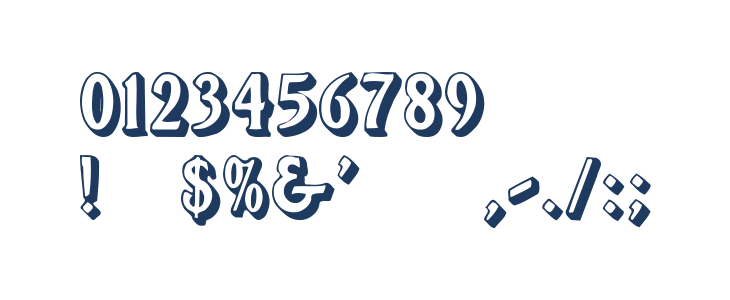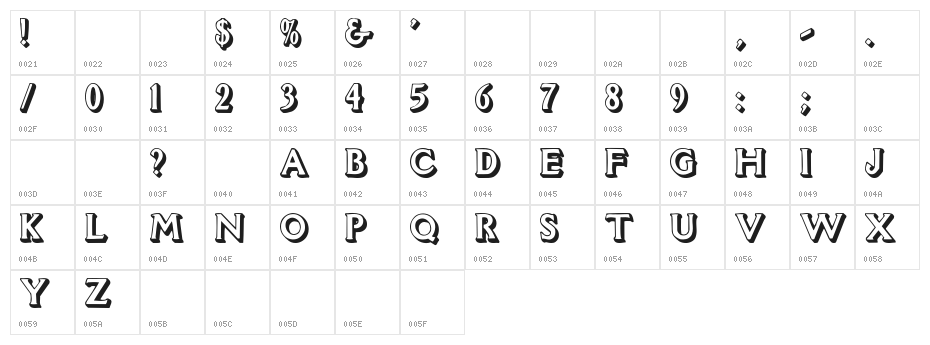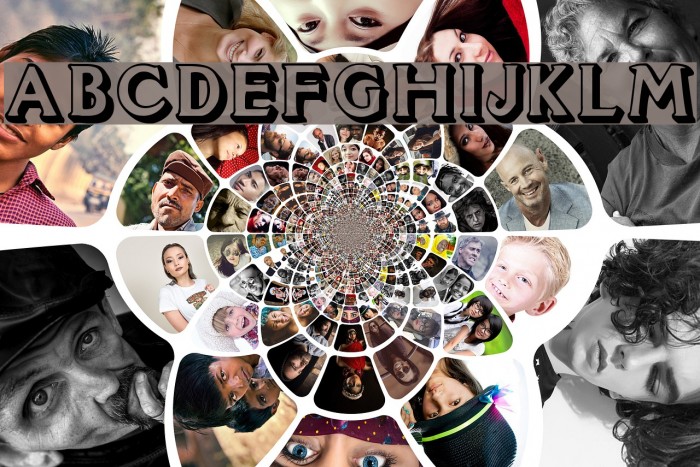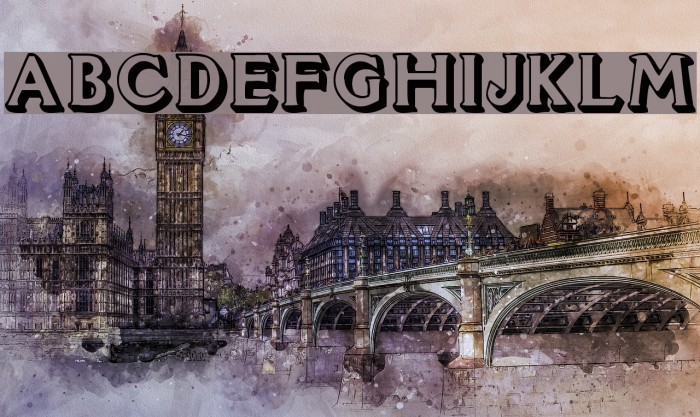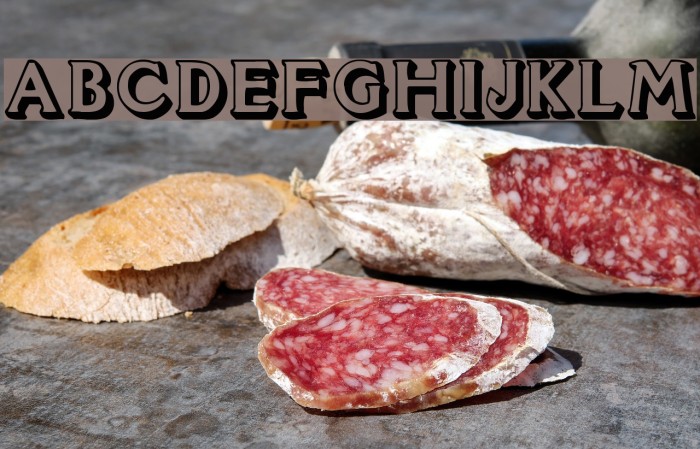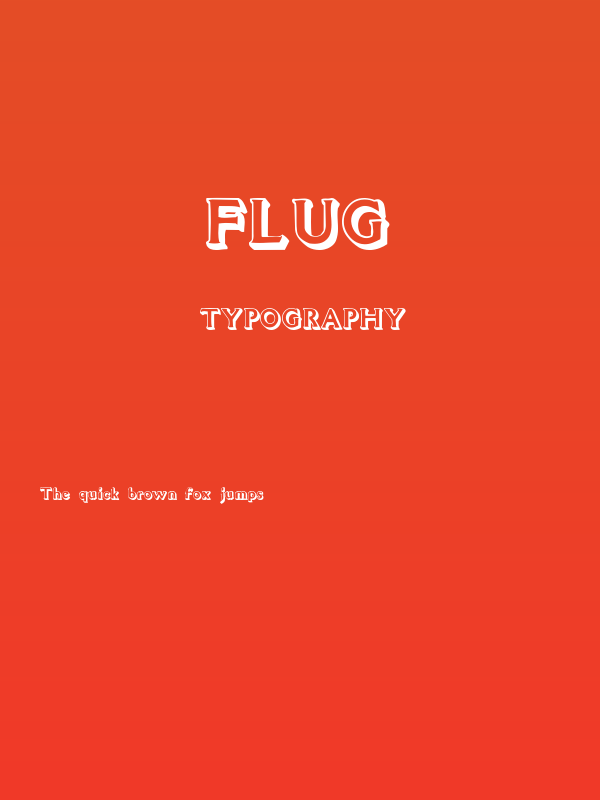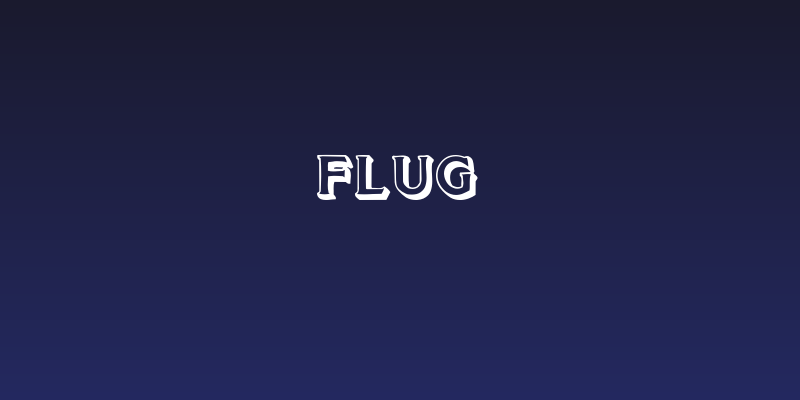
Flug Font
Flug Description
This font features a bold, decorative style with a three-dimensional shadow effect that gives it a striking and dynamic appearance. The uppercase letters are characterized by strong, angular lines and a consistent width, creating a sense of stability and boldness. The lowercase letters, while maintaining the same boldness, introduce a slightly more playful and artistic flair with irregular strokes that add a hand-drawn feel. The numerals are equally bold, with a consistent style that matches the uppercase letters, ensuring a cohesive look across different types of text. Special characters are included, maintaining the same bold and decorative style, making this font versatile for various uses. The overall design is eye-catching and suitable for projects that require a strong visual impact.
| Proposed Projects | Ideal for posters, headlines, logos, and any design requiring a bold statement. |